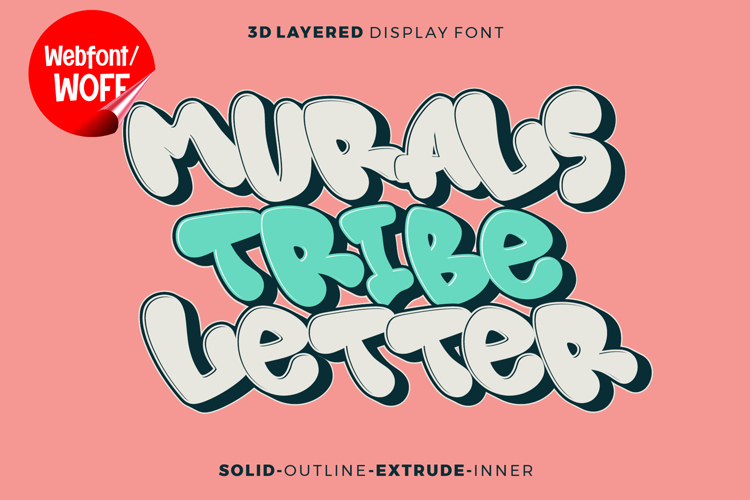
Mural Tribbe Letter | 3D Layered Graffiti Webfont for Urban
Mural Tribbe Letter is a 3D layered graffiti webfont designed to capture the bold spirit of street murals and translate it into modern website design. Inspired by large-scale wall art and graffiti lettering, this font features strong forms combined with dimensional layering that creates depth and visual impact. It is an excellent choice for projects that require an urban, artistic, and highly expressive typographic style.
Mural Tribbe Letter includes a complete set of uppercase characters designed with bold graffiti shapes enhanced by layered 3D effects. The dimensional structure gives each letter a sense of depth, making the text feel more dynamic and engaging. These letterforms are ideal for headlines, banners, hero sections, and featured content where a striking and artistic visual style is needed.
In addition to letters, the font includes numbers and punctuation, allowing flexible usage across various parts of a website. It works well for promotional text, event announcements, product highlights, and navigation accents. Each character maintains a consistent layered graffiti style, ensuring a cohesive and unified visual identity throughout the design.
With multilingual support, Mural Tribbe Letter includes a wide range of accented characters, making it suitable for international websites and global audiences. This allows content to be displayed clearly across different languages while preserving the bold graffiti aesthetic.
The 3D layered graffiti style of Mural Tribbe Letter makes it especially suitable for urban-themed websites, streetwear brands, music platforms, creative portfolios, and digital campaigns. Its mural-inspired design adds authenticity and artistic depth, helping websites stand out in competitive visual environments. The layered effect enhances dimension and gives the typography a strong presence.
Despite its bold and decorative appearance, Mural Tribbe Letter is designed with readability in mind. The spacing and proportions are carefully balanced to ensure clarity, particularly in display sizes. This makes it effective for impactful headings and short content elements where both style and usability are important.
Mural Tribbe Letter is a webfont that combines graffiti aesthetics with mural-inspired depth and modern digital performance. Its bold shapes, layered construction, and urban influence create a distinctive typographic presence that enhances website design. For projects that require a powerful, artistic, and visually engaging graffiti font, Mural Tribbe Letter offers a strong and creative solution.